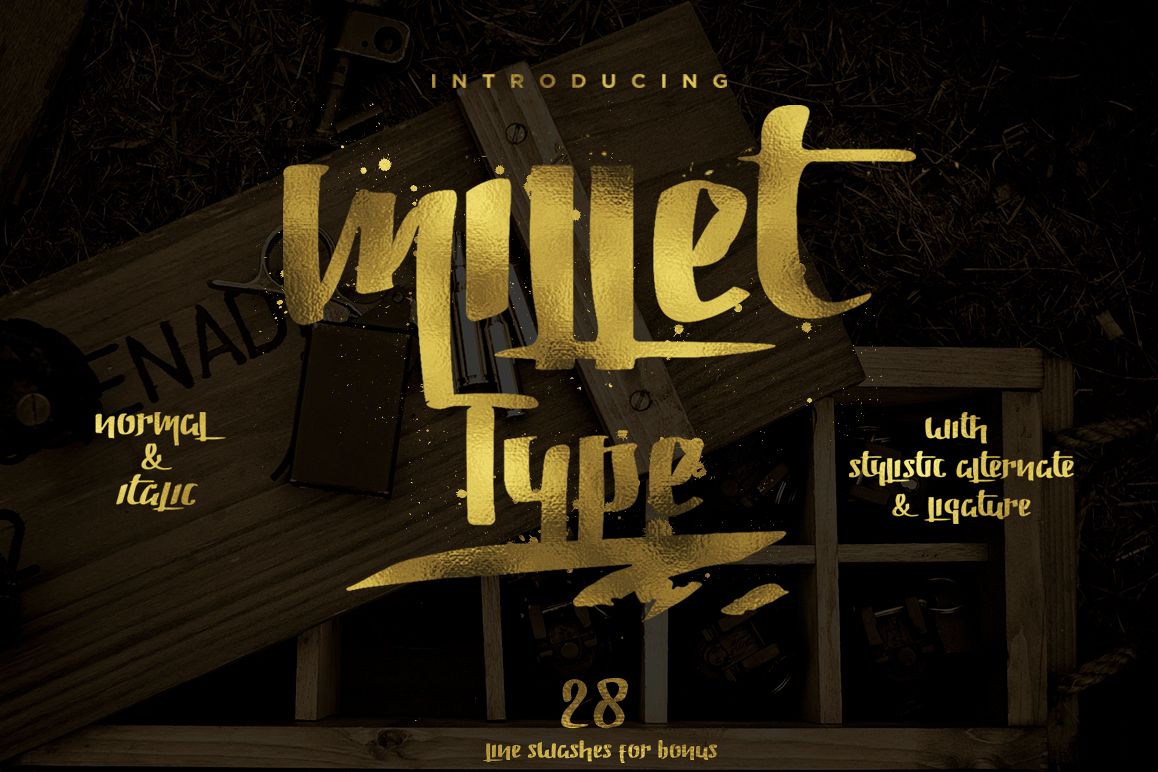
Introducing Millet Typeface a ner hand painted typeface with modern touched looks great and energic with stylistic alternate, ligature, and swashes for bonus.
this font can use for adventure, cover design, traveling, cafe, cooking, holiday, poster, quotes, headlines, logo, t-shirt. It comes with Uppercase, Lowercase, Numbers and etc.